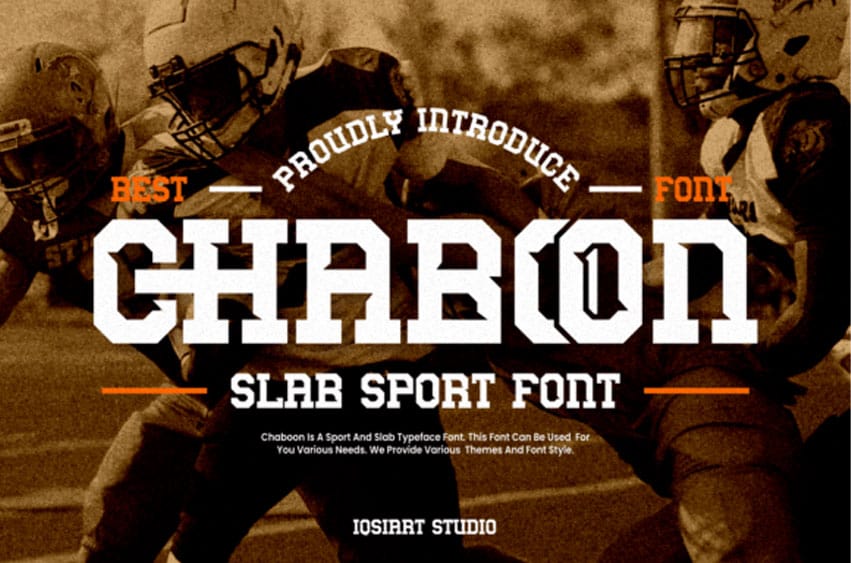
Chaboon Font is the best and authentic display font. This font can be used for your various needs.
This font is well-suited for a variety of contexts, such as print design, promotional materials, or magazine layouts.